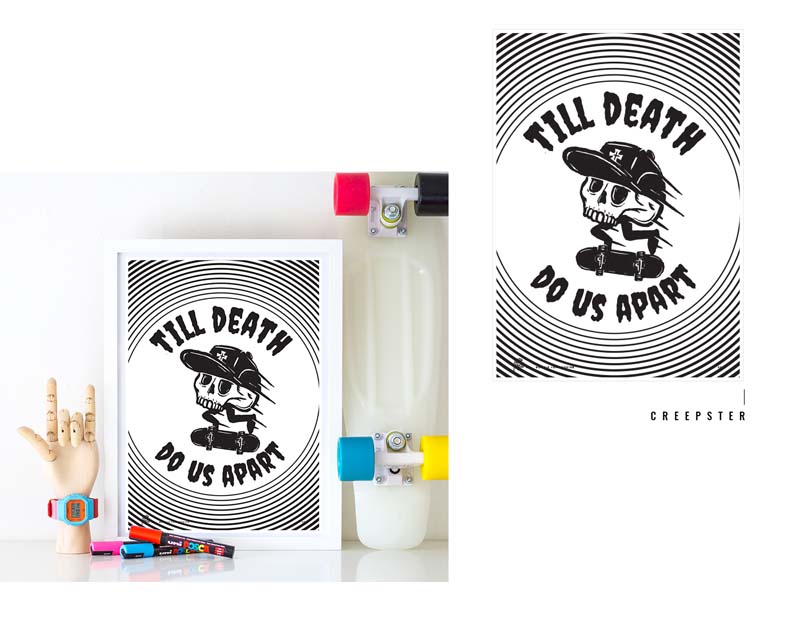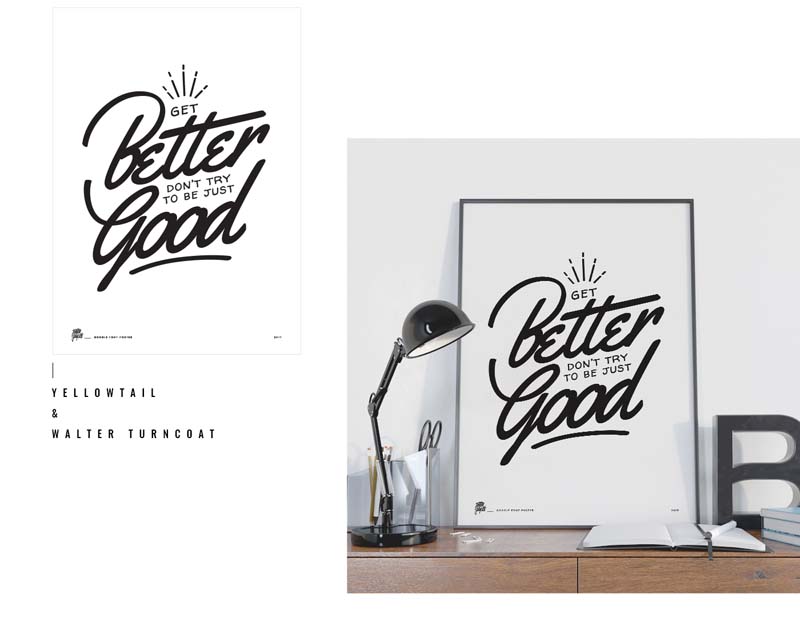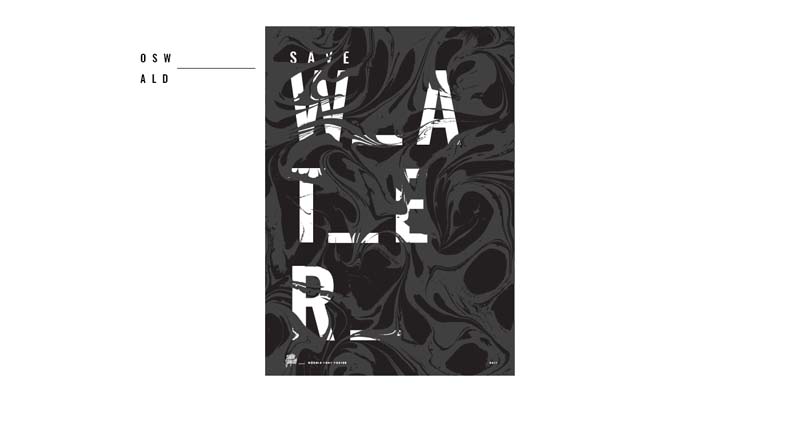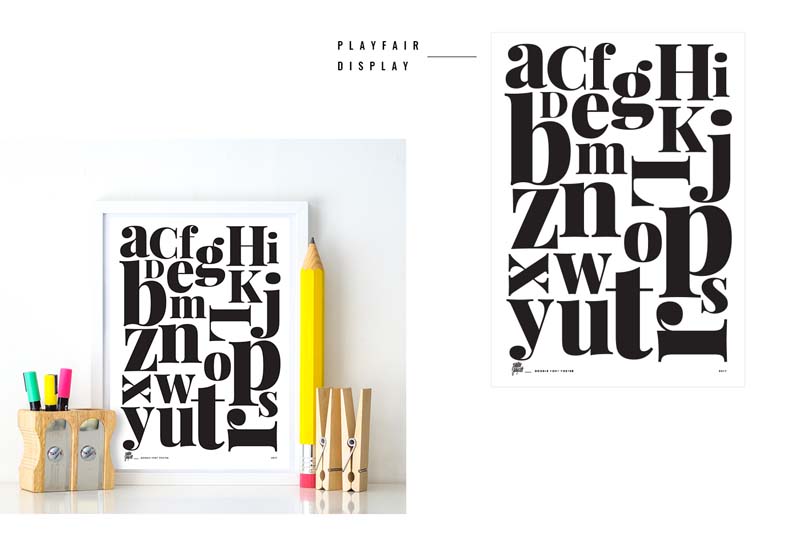
Typography Posters with Google Fonts by Piotr Jakubowski
Series of typography posters with Google fonts is made by Piotr Jakubowski who made them with google fonts only. This is somewhat personal project shared by him.
Poland based artist is art director, illustrator and type lover. He loves to do something different which is not just awesome but remarkable as well so people may remember what he has done. These typography posters with Google fonts have been made by him that are truly exceptional as he didn’t use any extra typeface to make it protruding. Only Google fonts have been used in this project. No extra colour, no typeface, no texture, no background. Simply minimal project which is minimal but outstanding.
Usually, artists and designers have to use more than two to three fonts in order to make project eye-catchy and perfect. Some time some colours also be added for more perfection but Piotr proved that no much colour, typeface and all required. You just know the way of work and that’s all. He did the same and show how such kind of work can be done with minimalism.